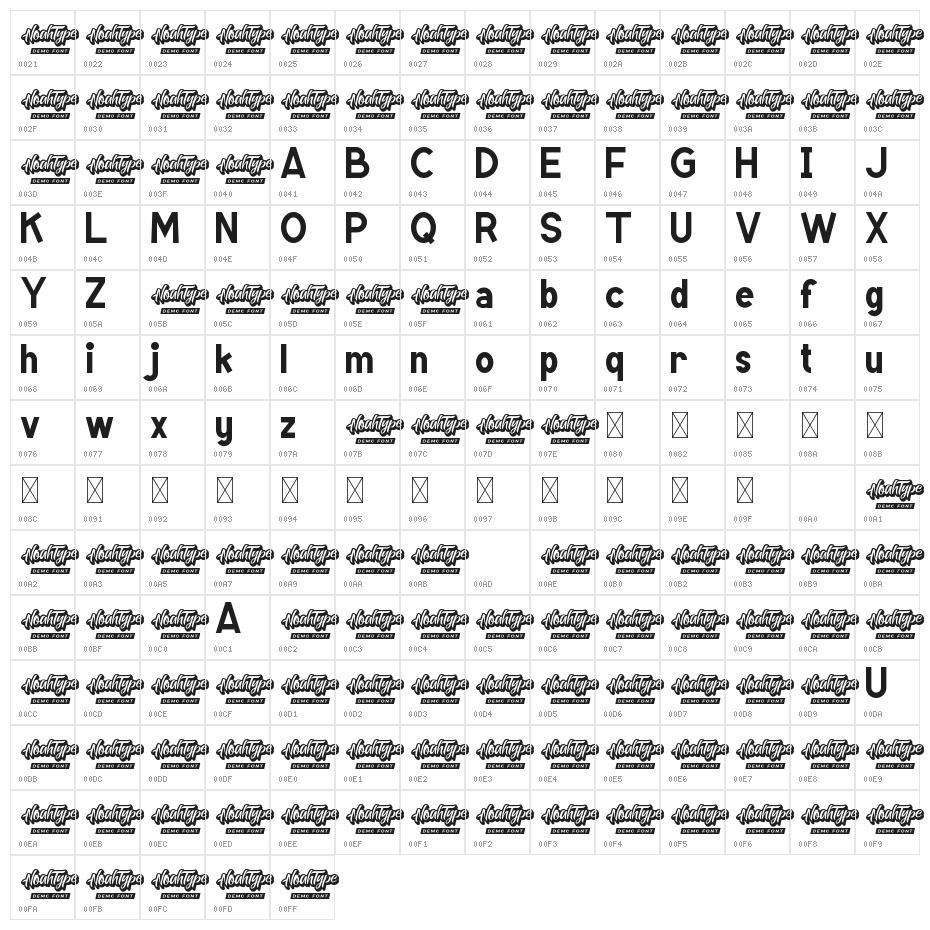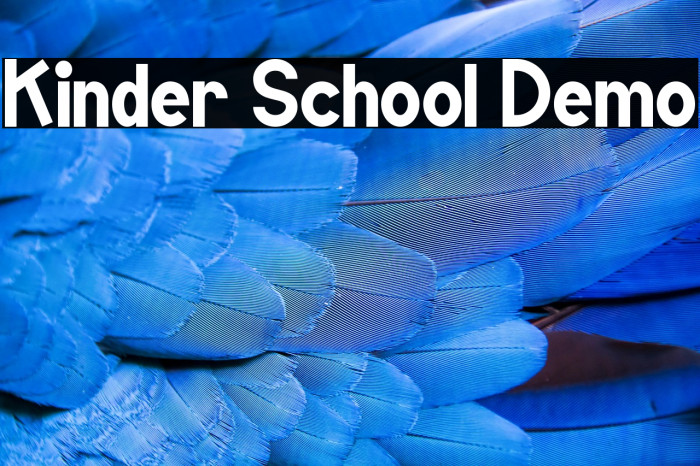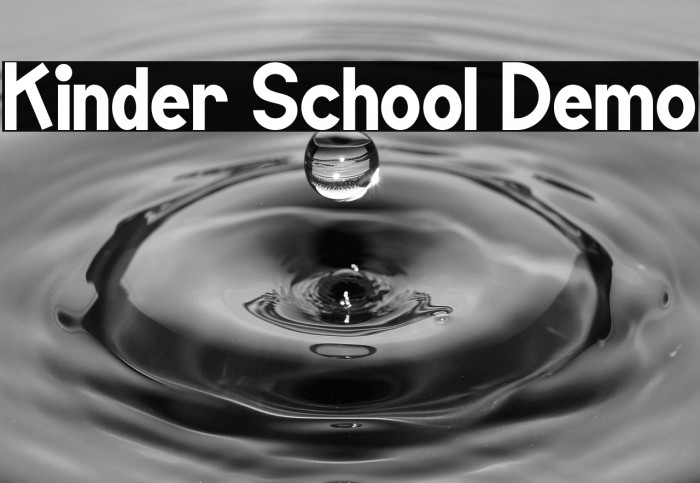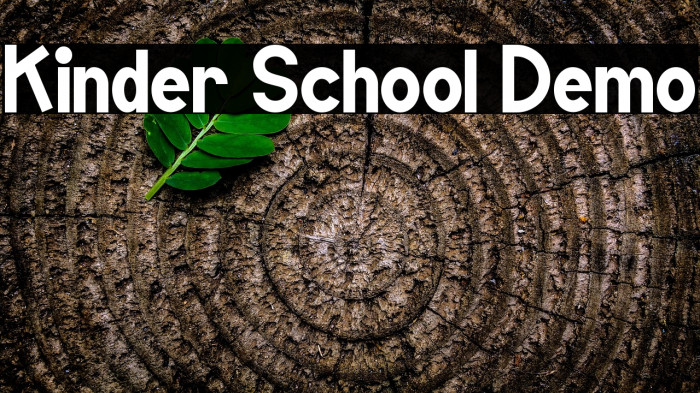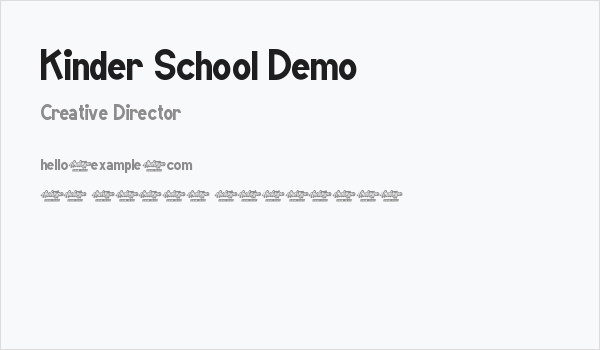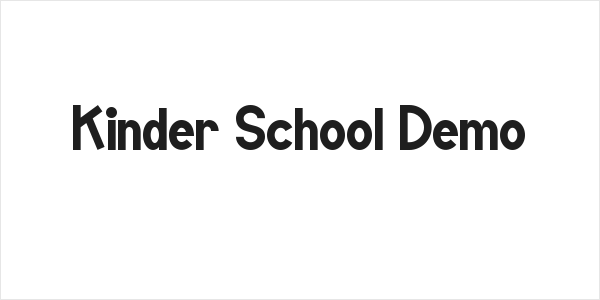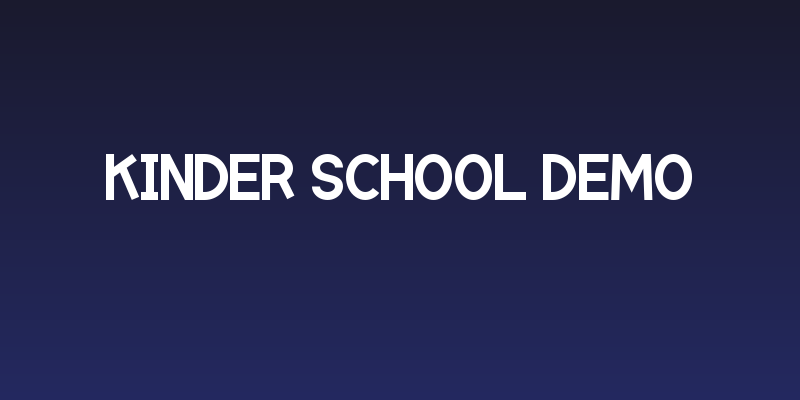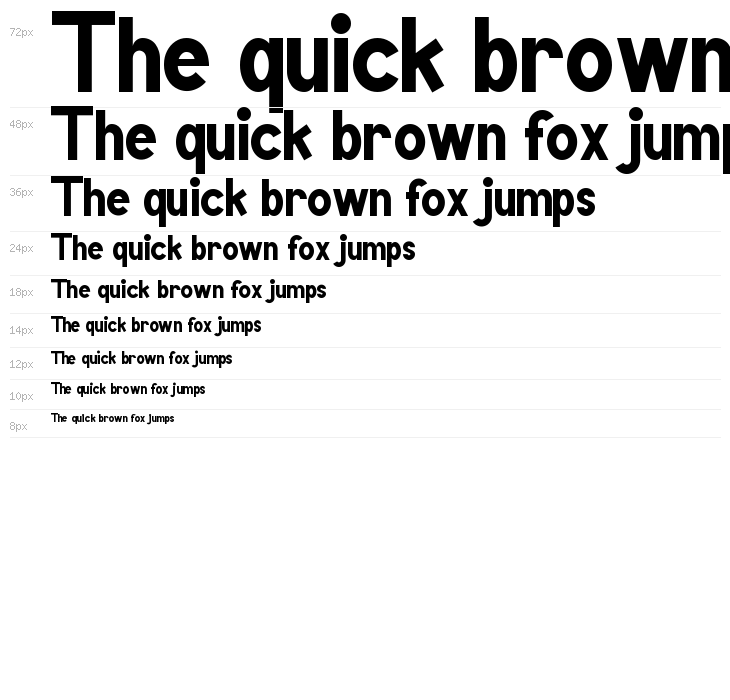
Kinder School Demo Font
Kinder School Demo Description
This font features bold, rounded characters that convey a sense of friendliness and approachability. The uppercase letters are strong and prominent, while the lowercase letters maintain a consistent, smooth flow. The font's design is straightforward, with minimal contrast in stroke thickness, making it highly legible. Its playful yet structured appearance makes it suitable for a variety of uses. The characters are evenly spaced, contributing to its readability. This font is ideal for projects that require a warm and inviting tone, such as children's books, educational materials, or playful branding.
| Overall Style | Playful, Friendly |
| Use Case | Headlines, Logos, Educational materials |
| Proposed Projects | Children's books, educational materials, playful branding, posters, and signage. |